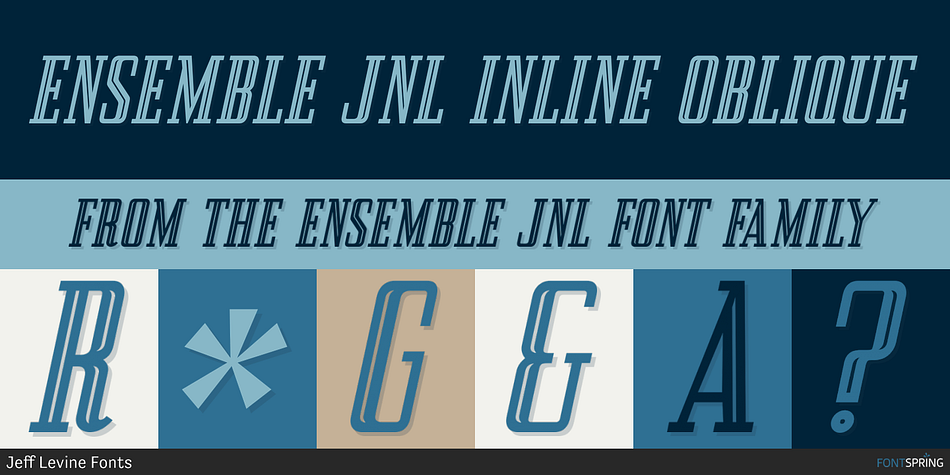
ENSEMBLE JNL INLINE OBLIQUE
Ensemble JNL is a display slab font family. This typeface has four styles and was published by Jeff Levine Fonts.
A 1940s-era edition of the sheet music for the Marine Corps Hymn offered up the hand lettering which comprises Ensemble Inline JNL.
A 1940s-era edition of the sheet music for the Marine Corps Hymn offered up the hand lettering which comprises Ensemble Inline JNL.  Bold, condensed and attention-getting, this titling font commands attention.
Available in Inline, Solid, Inline Oblique and Solid Oblique versions.